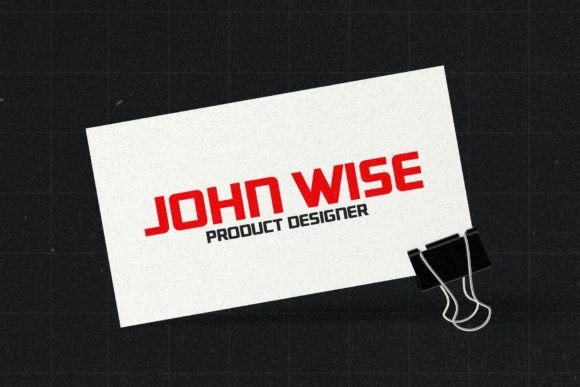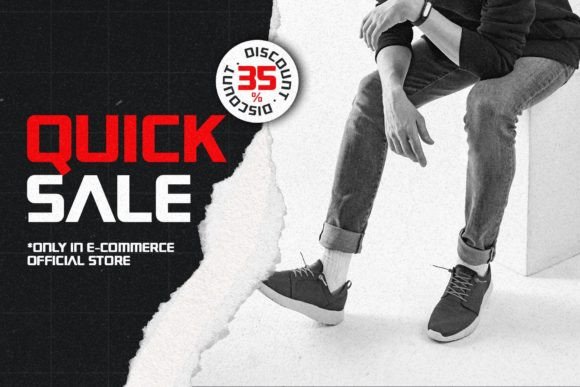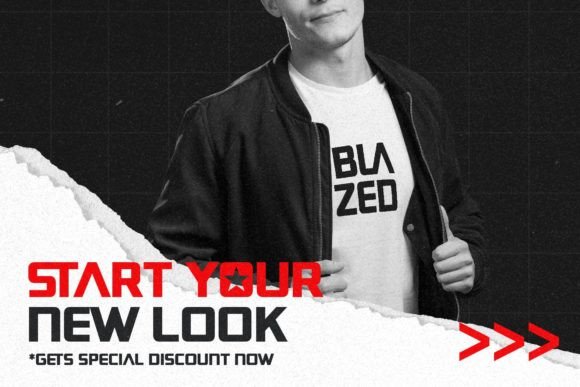
Canos Font
Canos is a cool and modern display font. No matter the topic, this font will be an incredible asset to your fonts' library, as it has the potential to elevate any creation.